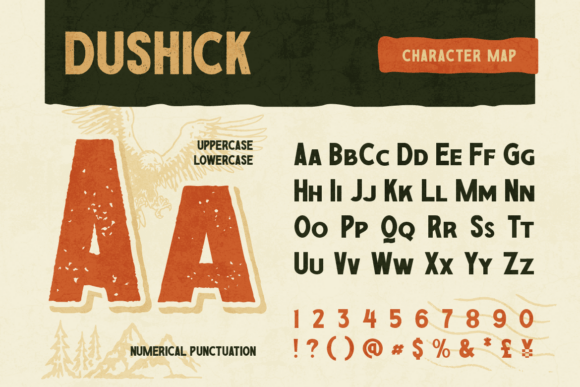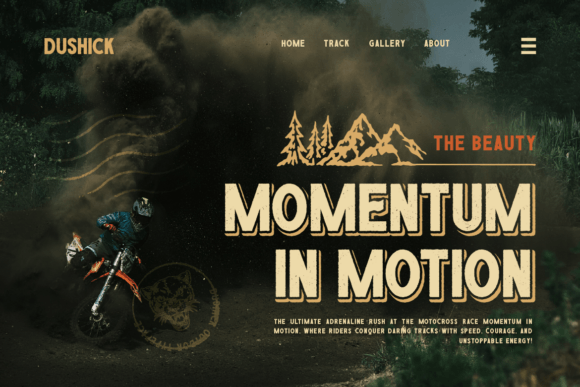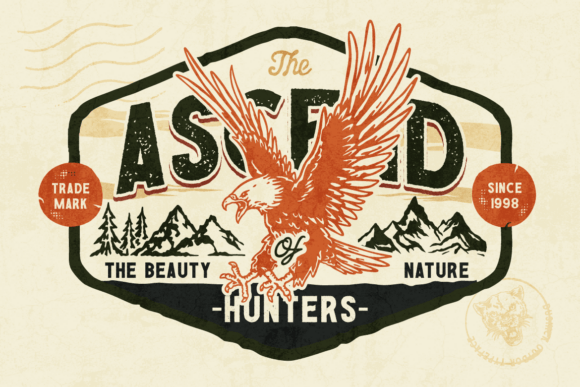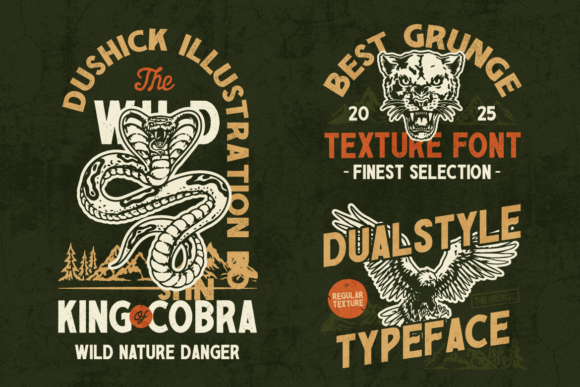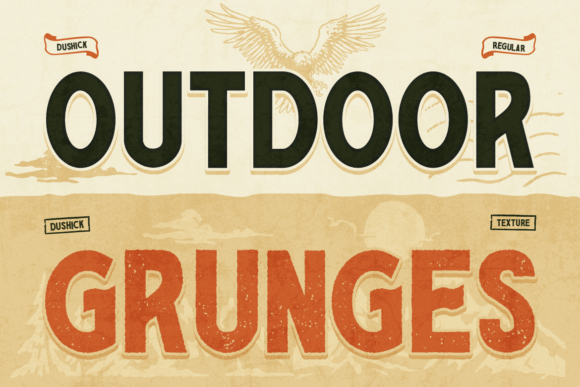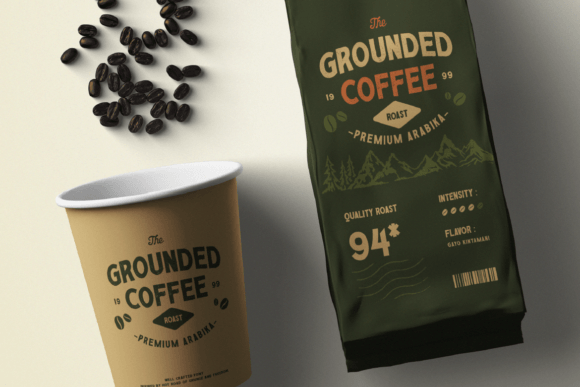
Dushick Font: Unleash the Spirit of Adventure in Your Designs
Are you tired of using the same old fonts in your designs? Look no further than the Dushick Font, a bold and rugged display font that’s perfect for capturing the essence of the great outdoors. With its clean regular style and textured style, this font offers versatility and a unique edge that’s sure to make your designs stand out.
A Font that’s Rough Around the Edges
Dushick Font is designed to evoke the spirit of adventure and the great outdoors. Its bold and rugged design makes it perfect for branding, streetwear, restaurants, logos, posters, merchandise, outdoor branding, camping gear, and any design project that requires a rustic and adventurous touch. Whether you’re designing for a outdoor gear company or a restaurant that serves up hearty meals, this font is sure to add a touch of rugged charm to your designs.
Two Styles for Added Versatility
One of the standout features of the Dushick Font is that it offers two distinct styles: a clean regular style and a textured style. The clean regular style is perfect for designs that require a bold and modern look, while the textured style adds a layer of depth and grit to your designs. This versatility makes it easy to use the Dushick Font in a wide range of design projects, from logos and branding to posters and merchandise.
Multilingual Support for International Projects
In today’s global market, it’s not uncommon for design projects to require multilingual support. The good news is that the Dushick Font includes multilingual support, making it suitable for international project design. Whether you’re designing for a global brand or a local business with international aspirations, this font has got you covered.
Beyond the Font: A Cool Bonus Illustration
To support the adventurous theme of the Dushick Font, the font comes with a cool bonus illustration that’s perfect for adding an extra touch of personality to your designs. This bonus illustration is a great way to add a unique element to your designs and help tell a story. Whether you’re designing a logo, poster, or merchandise, this bonus illustration is sure to come in handy.
The Dushick Font is perfect for designers and crafters who are looking to add a touch of adventure and rugged charm to their designs. Whether you’re a professional designer or a DIY crafter, this font is easy to use and versatile enough to be used in a wide range of design projects. With its bold and rugged design, multilingual support, and bonus illustration, the Dushick Font is a must-have for anyone looking to add a little excitement to their designs.
Design Project Ideas
- Branding and logos for outdoor gear companies
- Streetwear and apparel designs
- Restaurant and food truck branding
- Posters and flyers for outdoor events
- Merchandise and swag for outdoor enthusiasts
- Camping gear and equipment branding
In conclusion, the Dushick Font is a bold and rugged display font that’s perfect for designers and crafters who want to add a touch of adventure and rugged charm to their designs. With its clean regular style, textured style, multilingual support, and bonus illustration, this font is versatile and easy to use. Whether you’re designing for a outdoor gear company or a restaurant that serves up hearty meals, the Dushick Font is sure to make your designs stand out. So why wait? Download the Dushick Font today and start adding a touch of adventure to your designs!